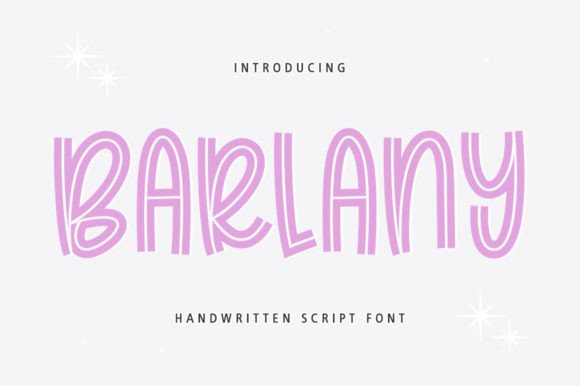
**Introducing Barlany Font: The Epitome of Romance and Elegance**
Step into the world of Barlany Font, where script and elegance intertwine to create a captivating masterpiece. Crafted by the renowned IRF Lab Studio, Barlany exudes a timeless charm that will elevate your designs to new heights.
**A Font for Your Most Precious Moments**
Barlany is the perfect choice for those seeking to add a touch of romance and sophistication to their wedding invitations. Whether it's the elegant script adorning your vows or the heartfelt sentiments expressed in your thank-you cards, Barlany will transform your words into works of art.
**Versatility Beyond Weddings**
But Barlany's allure extends far beyond the realm of nuptials. Its graceful curves and flowing lines lend themselves seamlessly to a wide range of design projects. From heartfelt quotes that inspire to eye-catching logos that make a statement, Barlany is the font that will make your words sing.
**The Perfect Complement to Your Design Arsenal**
Whether you're a seasoned designer or just starting your creative journey, Barlany Font is an essential addition to your digital toolbox. Its versatility and ease of use make it the perfect choice for any project that demands a touch of sophistication and charm.